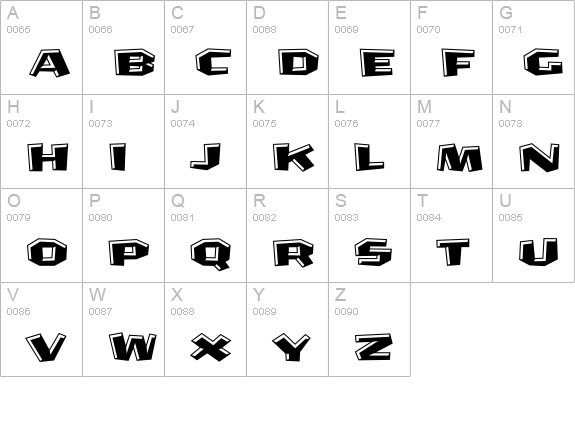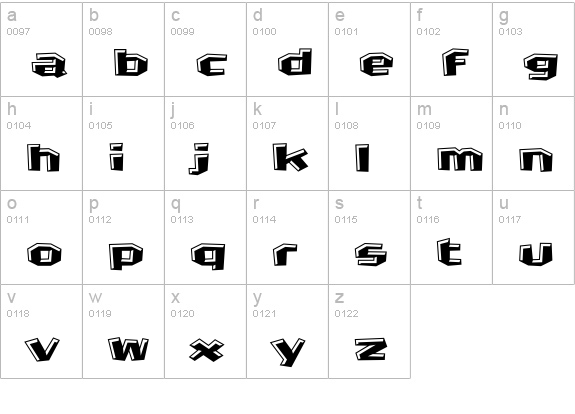
CrashBangWallop-Highlight Font Details
CrashBangWallop-Highlight font is a dynamic and eye-catching display font that will make your designs pop with excitement. Its bold and playful style is perfect for headlines, posters, and any project that needs a touch of energy. The unique highlight effect adds a sense of dimension and depth, making your text stand out in a crowd. Best of all, CrashBangWallop-Highlight font is completely free to download at FontsMarket.com. This means you can add this striking font to your collection without any cost, allowing you to unleash your creativity without breaking the bank. Don't miss out on this fantastic opportunity to elevate your designs with CrashBangWallop-Highlight font - get it now and start making a bold statement today!